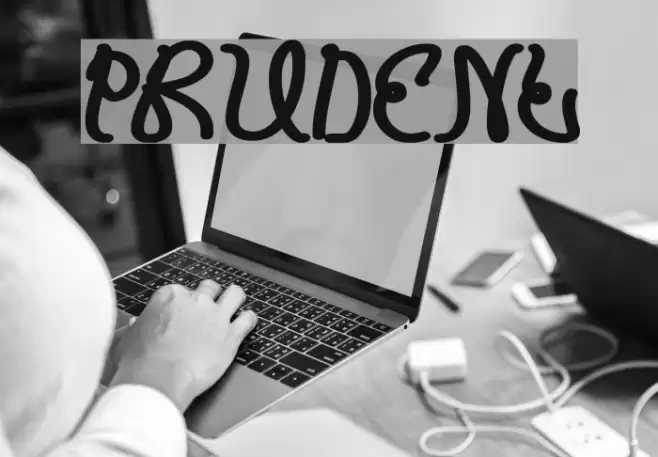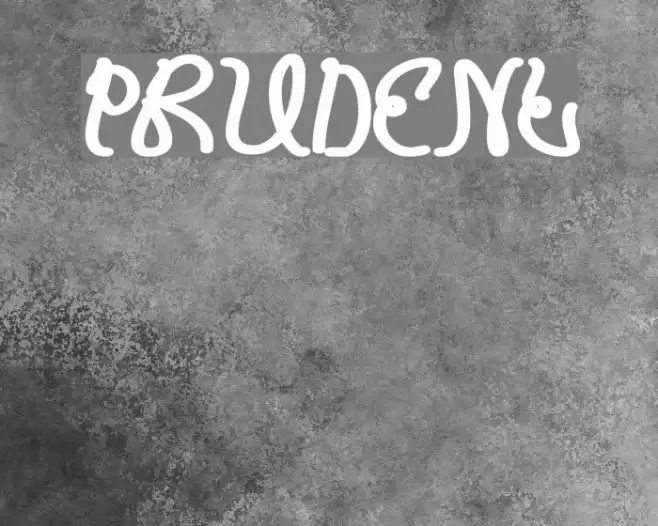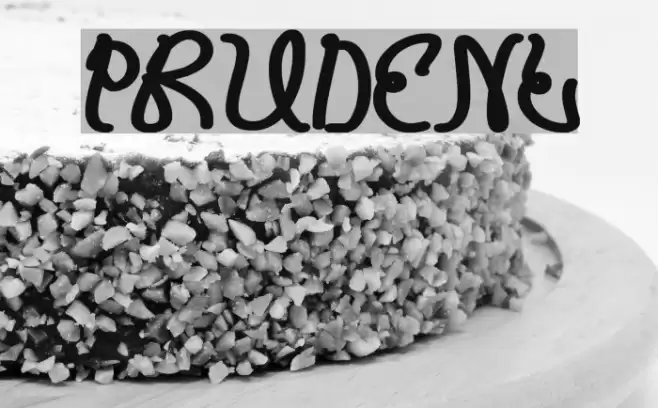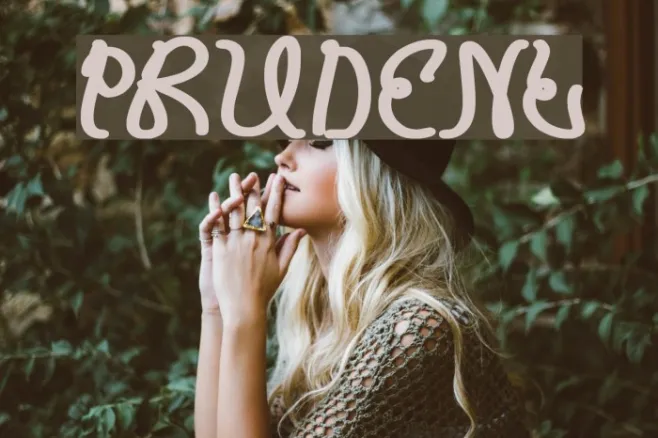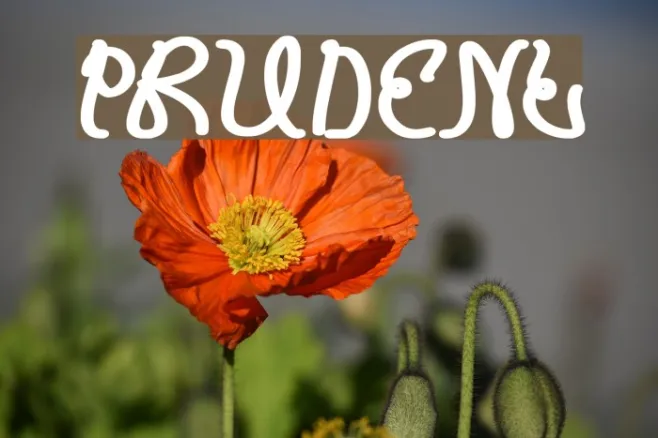
PRUDENT Font
PRUDENT Description
This font features a bold and expressive script style with a playful and artistic flair. The characters are interconnected with smooth, flowing lines, giving it a dynamic and lively appearance. The strokes are thick and consistent, providing a strong visual impact. The uppercase and lowercase letters maintain a cohesive design, with each character exhibiting unique curves and loops that enhance its decorative nature. This font is ideal for projects that require a touch of elegance and creativity, such as invitations, branding, and artistic designs.
A bold, expressive script font with flowing, interconnected characters from Uncategorized fonts.
- Proposed Projects: Ideal for invitations, branding, artistic designs, and decorative purposes.
- Character Spacing: Tight
- Use Case: Logos, Headlines, Artistic designs